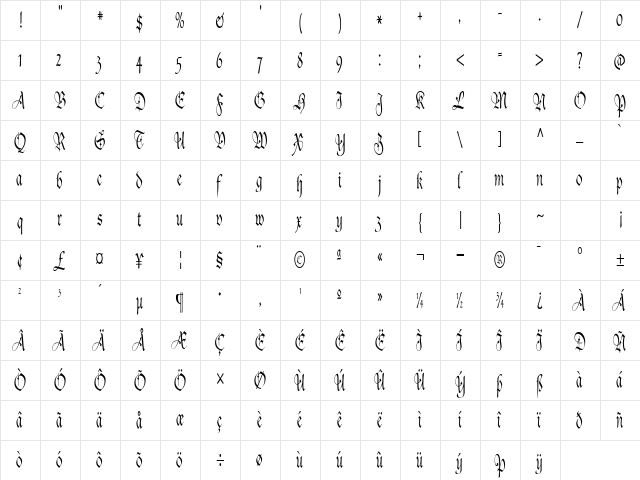
AgincortCondensed Regular Font Preview
AgincortCondensed Regular
Design Context for AgincortCondensed Typeface
AgincortCondensed is a composed and adaptable typeface that performs quietly and consistently across a wide range of design contexts. Its narrow stance lets it pack a punch even in space-constrained designs.